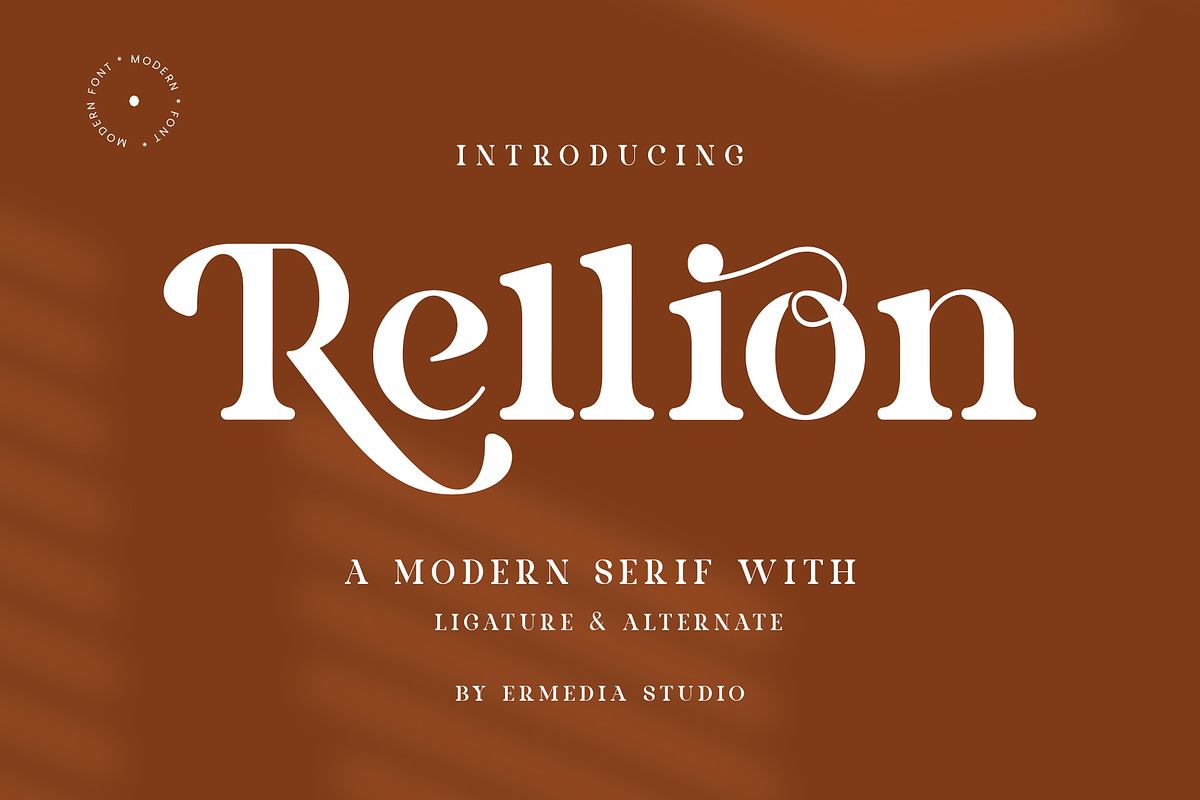
Rellion Serif Font Free Download is a modern, elegant serif typeface designed to bring sophistication and readability to your projects. With its sharp lines, balanced proportions, and classic yet contemporary feel, Rellion is perfect for luxury branding, editorial design, websites, packaging, and high-end marketing materials. It’s designed for designers who want a timeless yet modern font that feels both professional and stylish.
Using the Rellion Serif Font Free Download adds a clean, refined aesthetic to your designs. Whether you’re creating a high-end logo, an elegant website, or a chic product label, this font brings a sense of prestige and sophistication to your typography.